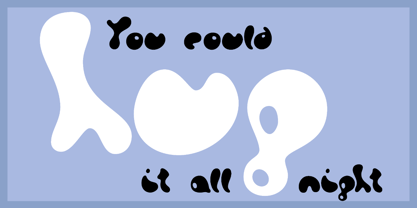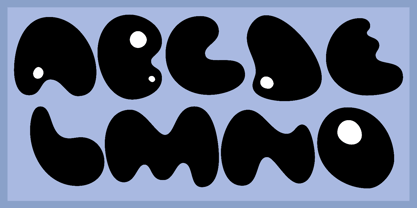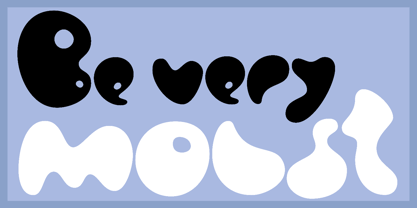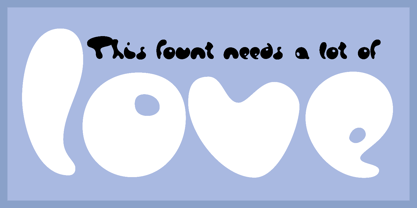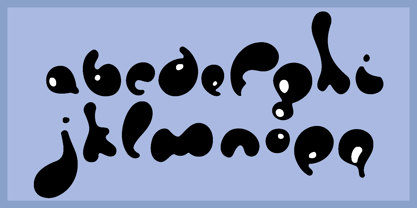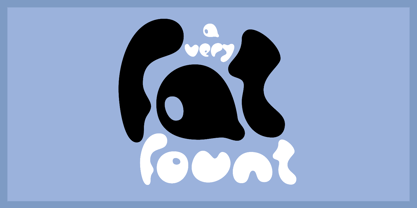
Moist
by Jules Akel
The Moist Font Family was designed by Jules Akel and published by Jules Akel. Moist contains 1 styles. More about this family
Moist is warm, soft, liquid, curvaceous, voluminous, languid, doughy, cushiony, bottomy, dewy, friendly, loving, fat, plump, chubby, chummy, paunchy, dumpy, padded, relaxed, succulent, sculptural, curvy, suggestive, modest, generous, voluptuous, buxom, Rubensesque, opulent, well endowed, pneumatic, mellow, sensual, juicy, lush, tender, lumpy, sweet, kind, bountiful, copious, munificent, indulgent, prodigal, plenteous, bumper, commodious, capacious, baggy, slouchy, oversized, balloony, bouncy, bubbly, ripe.
Designers: Jules Akel
Foundry: Jules Akel